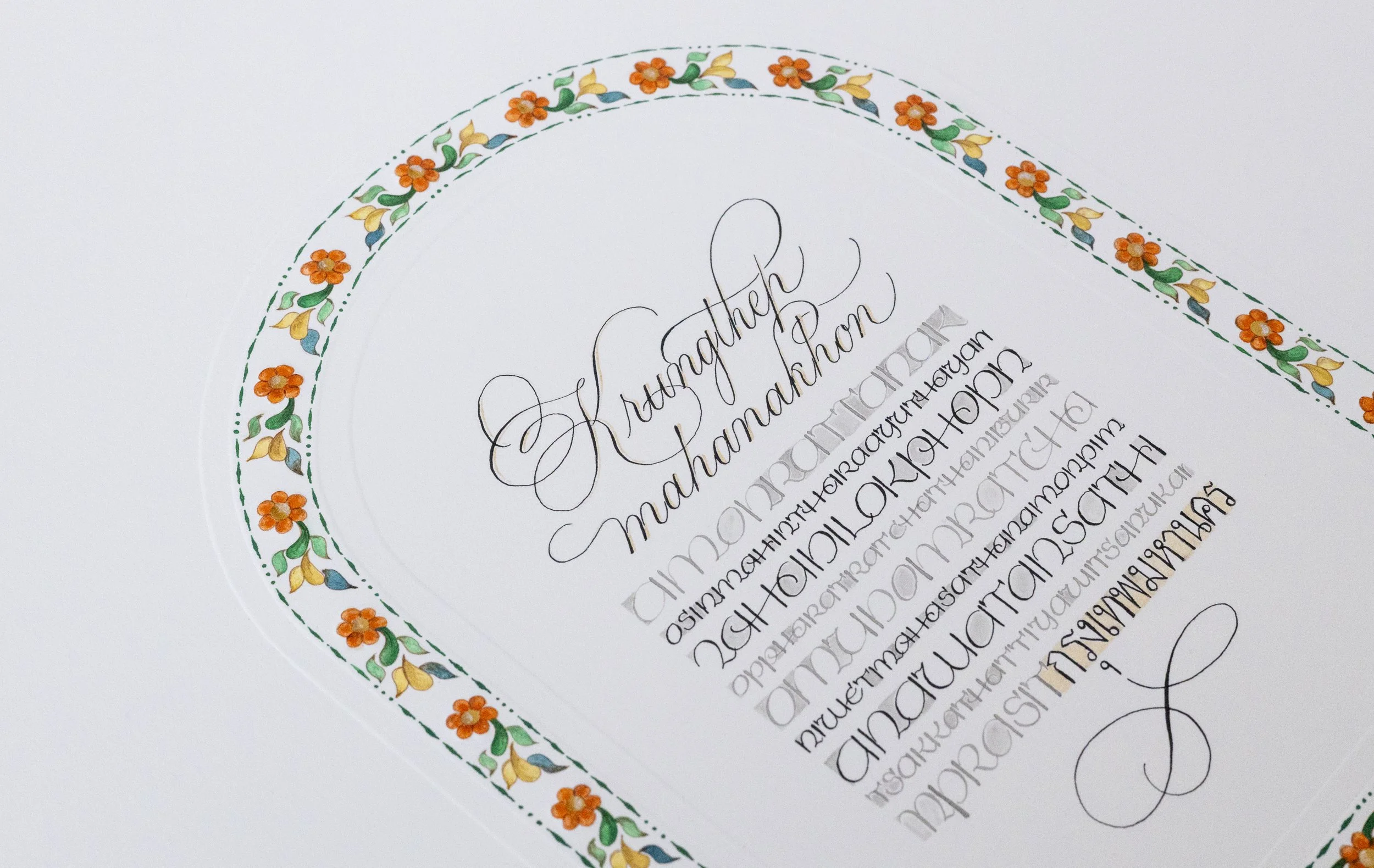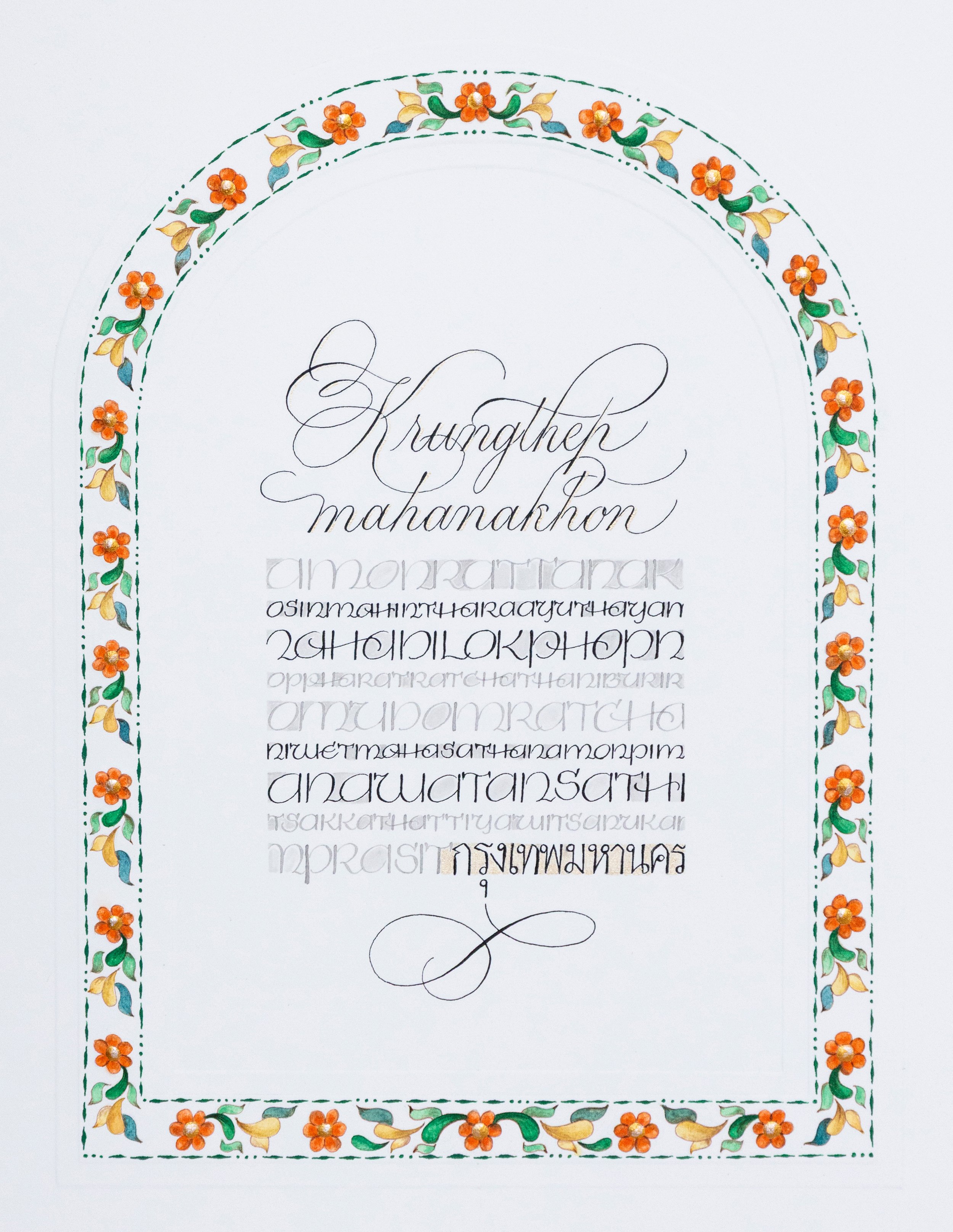
KUNNATEE VECHASILP | Bangkok
ARTIST | Kunnatee Vechasilp
BASED IN | Bangkok, Thailand
TITLE | Bangkok
MEDIUM | Sumi ink, Thaitone watercolours, watercolour paper, embossing tools
This work highlights the richness behind Bangkok’s full ceremonial name — the world’s longest place name with 168 letters. Through layered textures and Thai tonal colours, Kunnatee reflects the vibrant identity of “Krung Thep Maha Nakhon,” celebrating the city’s cultural depth and its poetic meaning, “The City of Angels.”
Kunnatee Vechasilp
Kunnatee Vechasilp is an artist based in Bangkok, Thailand, with a lifelong love for art and crafts. Although creative classes were available where she lived, calligraphy was rare to find—until the internet and social media opened the door for her to begin her calligraphy journey in 2016. Drawn to classic scripts, she works with Copperplate, Spencerian, American Cursive, Italian Hand, and Gothicized Italic. Her practice is characterised by flourishing, ornaments, and delicate pen-drawn florals, which she considers the most joyful and expressive parts of her work.